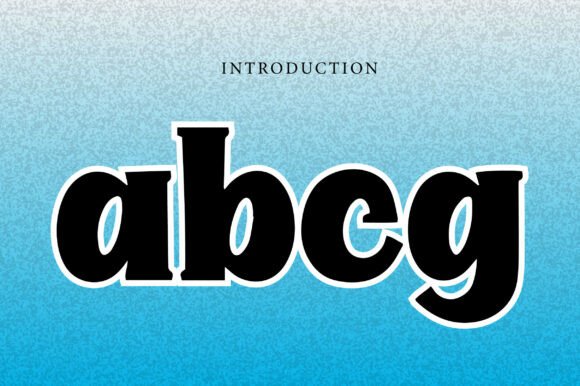
Introducing Boomster Font: The Ultimate Display Font for Bold and Energetic Designs
Are you looking for a font that can add a dash of fun, energy, and personality to your designs? Look no further than Boomster, a bold and energetic display font that’s perfect for creating lively and attention-grabbing typography. With its chunky shapes, playful curves, and slightly decorative letter details, Boomster is sure to make your designs stand out with confidence and charm.
A Retro-Inspired yet Modern Font
Boomster’s design is a unique blend of retro and modern elements, making it a versatile font that can be used in a variety of design projects. Its chunky shapes and playful curves give it a nostalgic feel, while its clean lines and balanced proportions keep it looking fresh and modern. Whether you’re creating posters, branding materials, or social media content, Boomster’s strong visual style is sure to grab attention and leave a lasting impression.
Boomster’s bold and energetic personality makes it perfect for a wide range of design projects, including:
- Posters and Flyers: Create eye-catching posters and flyers that grab attention and communicate your message with impact.
- Branding and Logo Design: Use Boomster to create bold and memorable logos that reflect your brand’s personality and values.
- Product Packaging: Add a touch of fun and energy to your product packaging with Boomster’s playful and attention-grabbing typography.
- Kids-Themed Graphics: Boomster’s playful and energetic personality makes it perfect for kids-themed graphics, such as children’s book covers, educational materials, and more.
- Social Media Content: Use Boomster to create engaging and attention-grabbing social media content that stands out in crowded feeds.
- Merchandise: Add a bold and energetic touch to your merchandise, such as t-shirts, mugs, and more, with Boomster’s fun and playful typography.
Key Features of Boomster Font
So what makes Boomster font so special? Here are some of its key features:
- Bold and Energetic: Boomster’s bold and energetic personality makes it perfect for creating attention-grabbing typography.
- Chunky Shapes: Boomster’s chunky shapes give it a playful and fun feel that’s perfect for creating lively and engaging designs.
- Playful Curves: Boomster’s playful curves add a touch of whimsy and personality to its design.
- Slightly Decorative Letter Details: Boomster’s slightly decorative letter details add a touch of sophistication and elegance to its design.
- Retro-Inspired yet Modern: Boomster’s unique blend of retro and modern elements makes it a versatile font that can be used in a variety of design projects.
Why Choose Boomster Font?
So why should you choose Boomster font for your design projects? Here are just a few reasons:
- Unique and Memorable: Boomster’s bold and energetic personality makes it a unique and memorable font that’s sure to grab attention.
- Versatile: Boomster’s retro-inspired yet modern design makes it a versatile font that can be used in a variety of design projects.
- Easy to Read: Despite its bold and chunky design, Boomster is easy to read, even at smaller sizes.
- Fun and Playful: Boomster’s playful and energetic personality makes it perfect for creating fun and engaging designs.
In conclusion, Boomster font is a bold and energetic display font that’s perfect for creating lively and attention-grabbing typography. With its chunky shapes, playful curves, and slightly decorative letter details, Boomster is sure to make your designs stand out with confidence and charm. Whether you’re creating posters, branding materials, or social media content, Boomster’s strong visual style and unique personality make it the perfect choice for designers and crafters looking to add a touch of fun and energy to their designs.